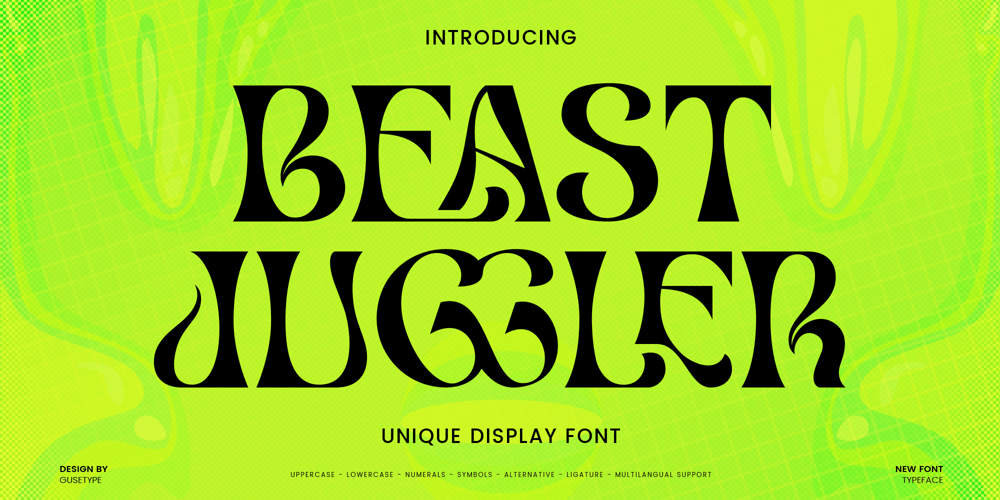
Beast Juggler Font Family was designed by Guntur Septyan and published by GuseType. Beast Juggler contains 1 styles and family package options. Beast Juggler is a unique display font that inspired from psychedelic arts. This font looks thin with curved and wavy lines on each glyph character, making this font look more sharp, scary and the other side look playful & elegant, This font can be use in various project design like posters, magazines, logos, banner, invitations, brochure, album cover design, banner, invitations, brochure and many more. Beast Juggler has several features including standard glyphs, multiple languages support, punctuation marks, symbols, alternative and ligature.